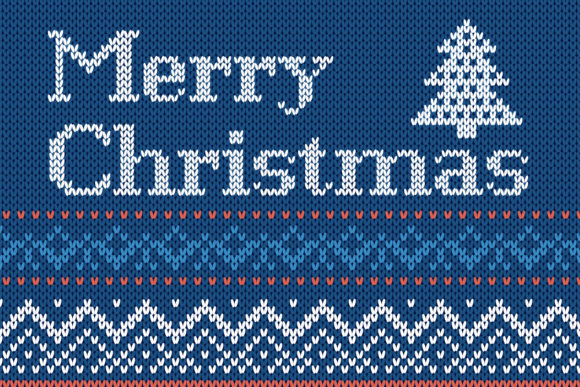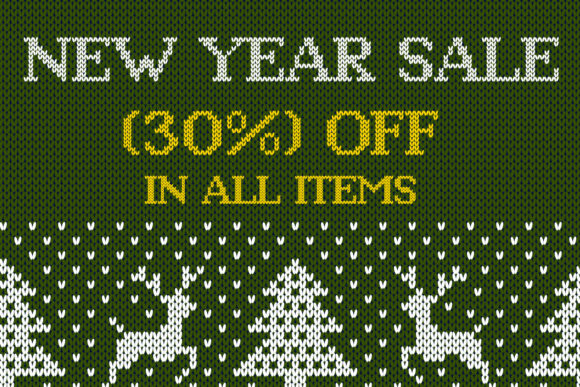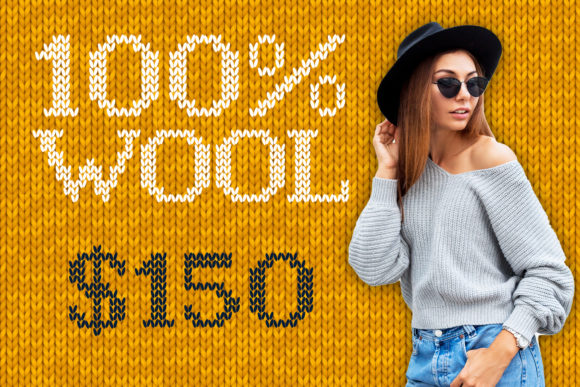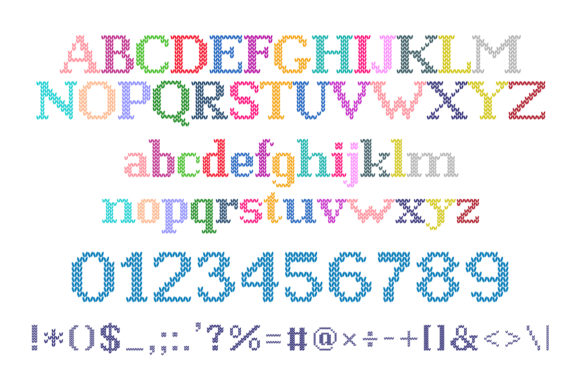
Introduction to Knitto Font
Have you ever stared at a blank canvas, waiting for that spark of creativity to strike? For designers, those moments can be both exhilarating and daunting. But what if you had the perfect tool to bring your ideas to life? Enter the enchanting Knitto Font, a friendly decorative font that embodies fun, quirkiness, and authenticity.
Key Features of Knitto Font
- Unique and creative font style, ideal for designers and artists looking for something distinct.
- Perfect for use in graphic design, digital art, and other creative projects, where a unique and stylish font is required.
Honest Review: Knitto Font
As a designer, I’m always on the lookout for high-quality design resources to elevate my creative projects. The Knitto Font caught my attention with its unique, hand-drawn style and free download option. I decided to give it a try and see how it stacks up.
- ✨ The hand-drawn style adds a touch of whimsy and personality to any design project.
- ⚠️ The font may not be suitable for projects that require a more formal or professional tone.
- ⚠️ Some users may find the font’s irregularities and imperfections distracting, especially in large blocks of text.
Overall, I’m impressed with the Knitto Font’s potential as a design resource. While it may not be suitable for every project, it’s a great choice for designers looking to add a touch of creativity and personality to their work. With its high quality and free download option, it’s definitely worth checking out.
Common Use Cases for Knitto Font
The Knitto Font is commonly used in:
- Graphic design projects.
- Marketing materials.
- Branding projects.